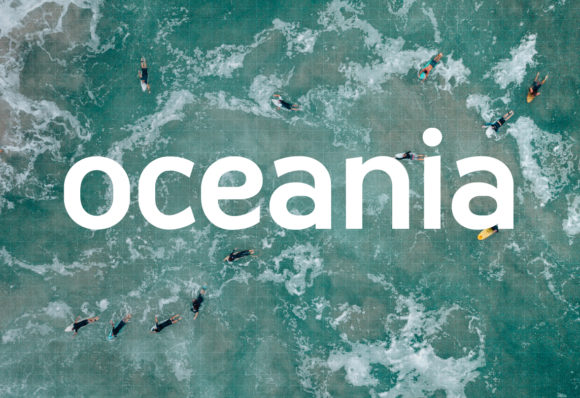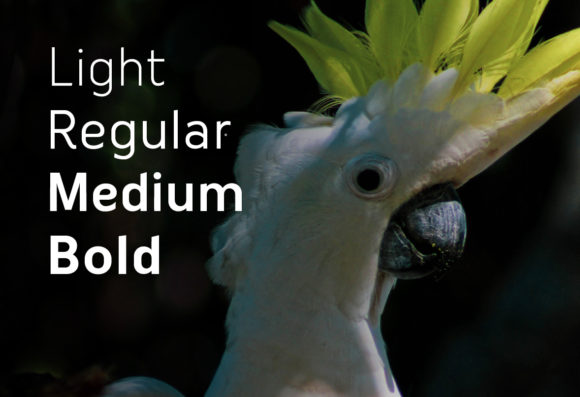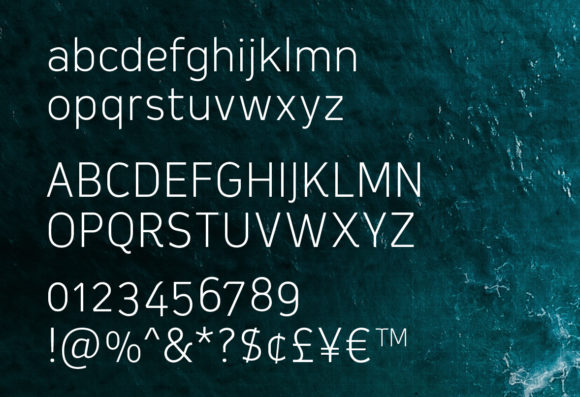
HomeSans Serif FontsOceania Font Sans Serif Fonts Oceania Font FacebookTwitterPinterestWhatsApp Oceania Font 1 of 3 About Oceania Font Oceania is a light, clean and modern sans serif font that comes in four distinct weights. DOWNLOAD NOW People also explored Belliny Font Melissa Adalyn Font Funyard Ribaques Font Rainbow Creative Font Emencut Font Mens White Bella Canvas 3001 Tee Mockup Trug Font Cottages Font 153 0 TagsOceaniaOceania Font Previous articleSentic FontNext articleCenturia Font LEAVE A REPLY Cancel reply Comment: Please enter your comment! Name:* Please enter your name here Email:* You have entered an incorrect email address! Please enter your email address here Website: Save my name, email, and website in this browser for the next time I comment. Personal Use Free Stronger Personal Use Free Read more about this font Dream Personal Use Free Read more about this font Happy Rabbit Personal Use Free Read more about this font Mail Ray Stuff Personal Use Free Read more about this font BLOG To increase your work productivity, choose the most readable fonts. In today's fast-paced work environment, where digital communication and information consumption are integral to our daily routines, the choice of fonts can significantly impact... Free Fonts Risk: Why Free Fonts Can Be Dangerous for Designers Where to Buy American Fonts Online in 2024 Free vs Paid Fonts: Why Investing in Premium Fonts Is Worth It